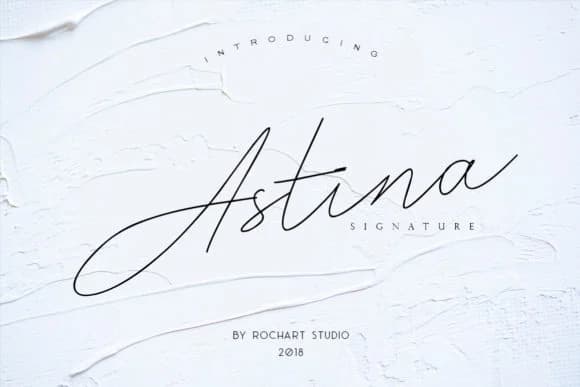
Astina Font by RochArt is a flowing contemporary script that brings sophistication and personal flair to professional and creative projects alike. With its smooth, confident letterforms and refined character details, this typeface works beautifully for applications where elegance and individuality need to coexist in harmony. The font's fluid strokes and graceful curves make it particularly well-suited for wedding invitation suites, where every visual element contributes to setting the perfect tone for your celebration.
Beyond weddings, Astina performs exceptionally well on carefully designed greeting cards and formal stationery that benefit from a polished yet distinctly personal aesthetic. It's equally effective for cosmetic and skincare brand packaging, where the script's flowing, organic nature communicates premium quality and attention to detail without overwhelming the product identity. Social media graphics for lifestyle and wellness businesses also shine when featuring this typeface, as its contemporary feel speaks naturally to modern audiences while maintaining a sense of timeless elegance and refinement.
Astina Font is a script font that shines as a display or heading face. Pair it with a clean sans-serif or serif font for body text β the contrast creates a clear hierarchy while the two styles stay balanced and easy to read.
Astina Font